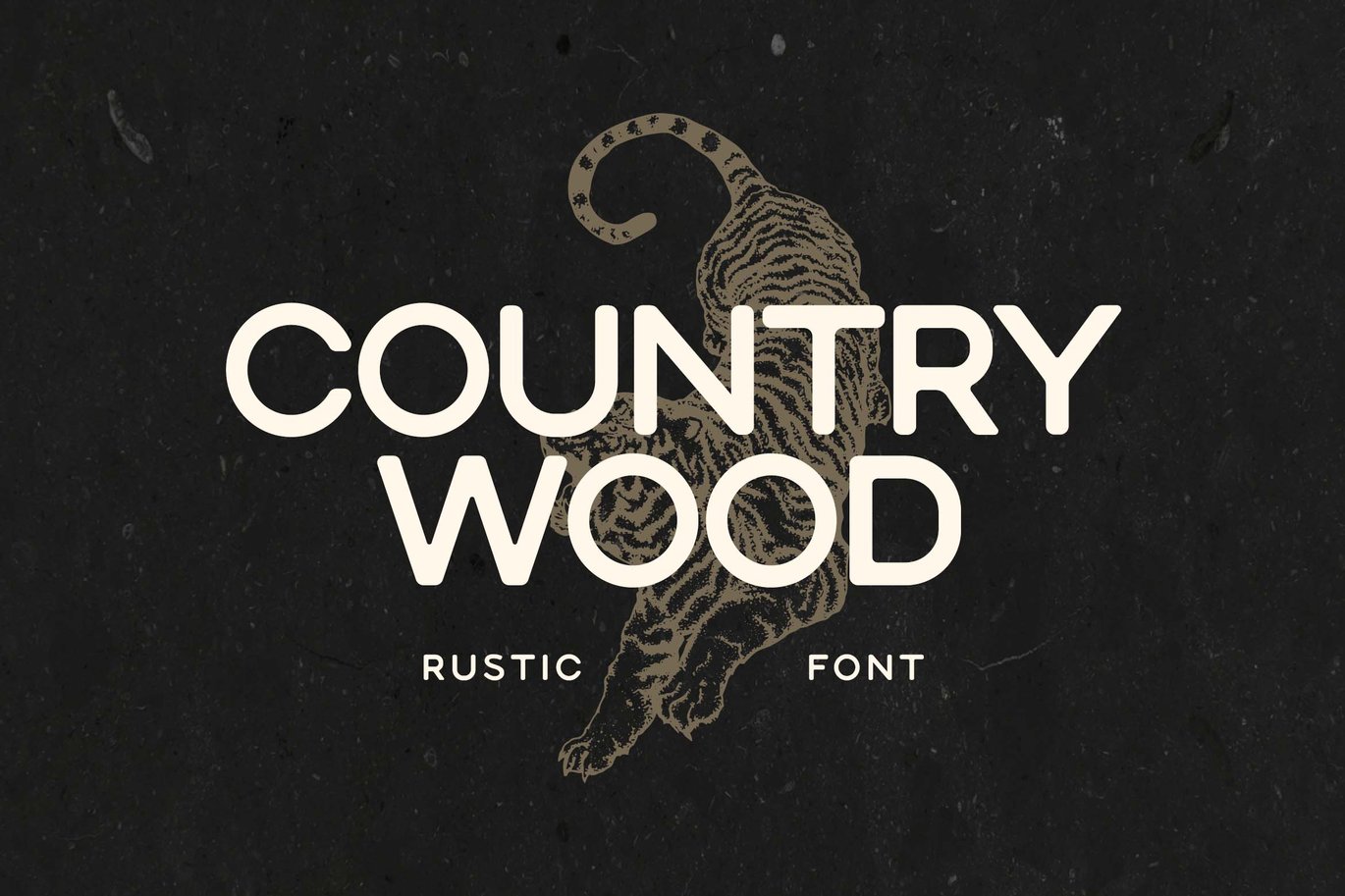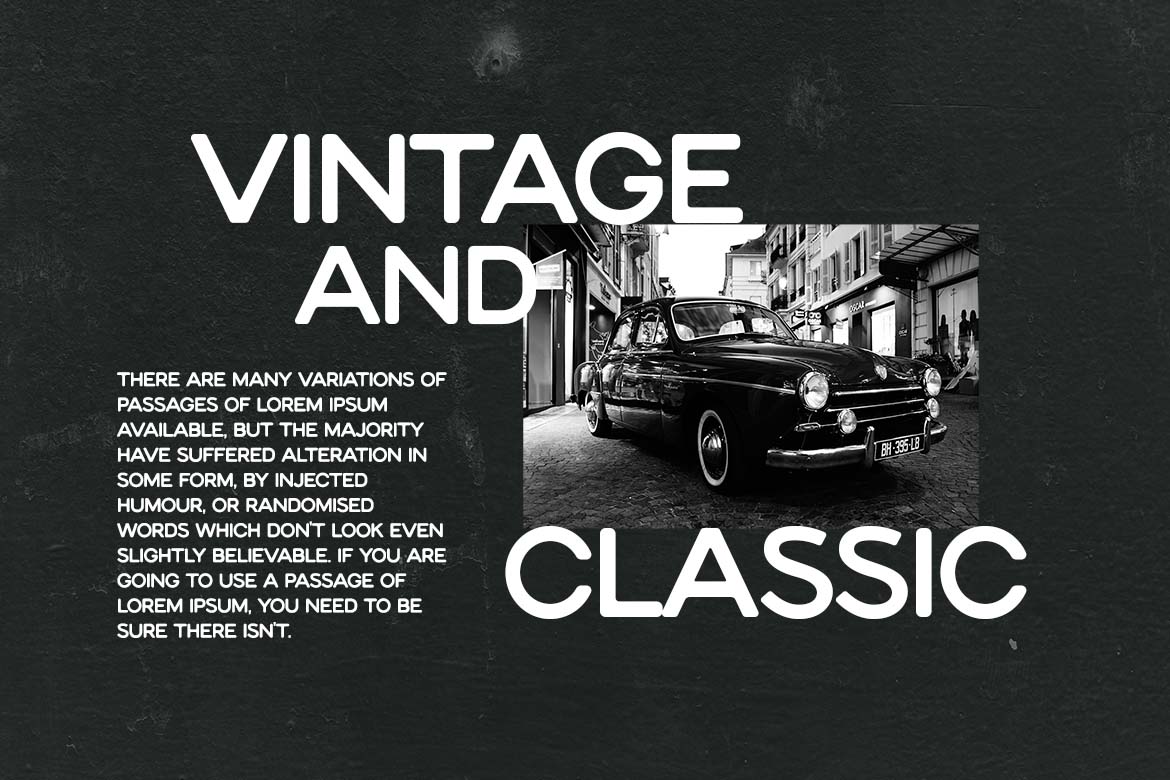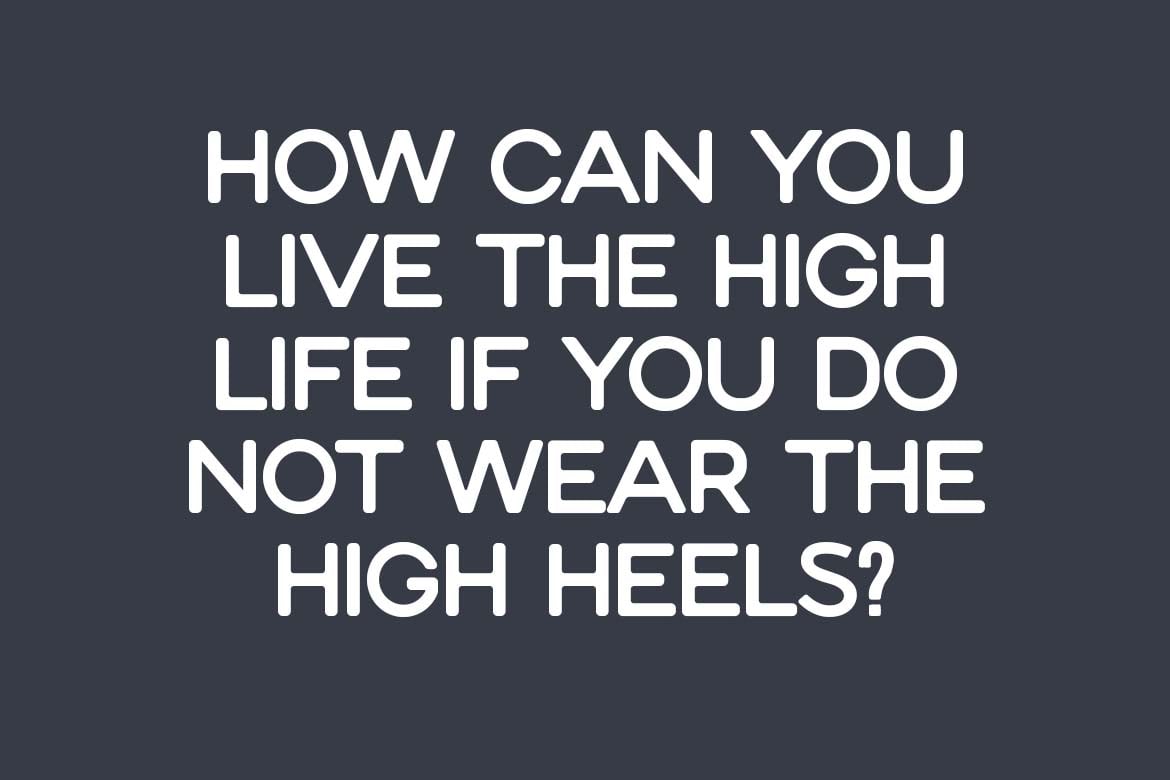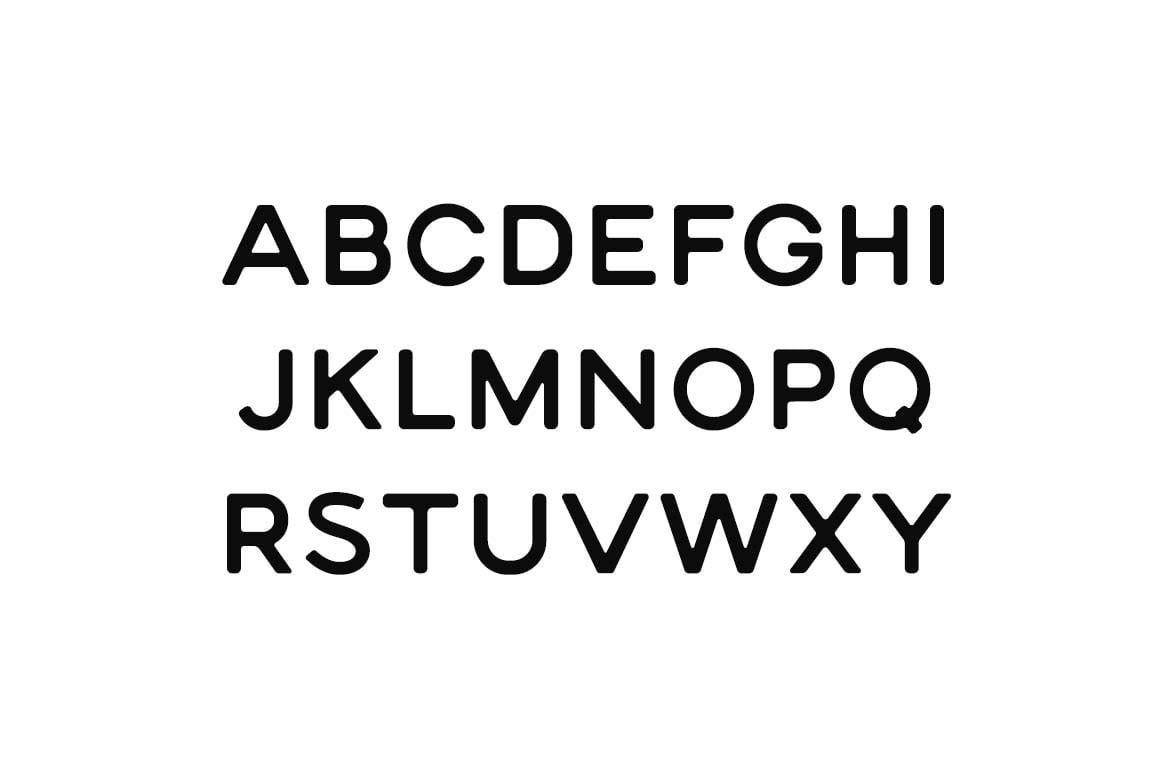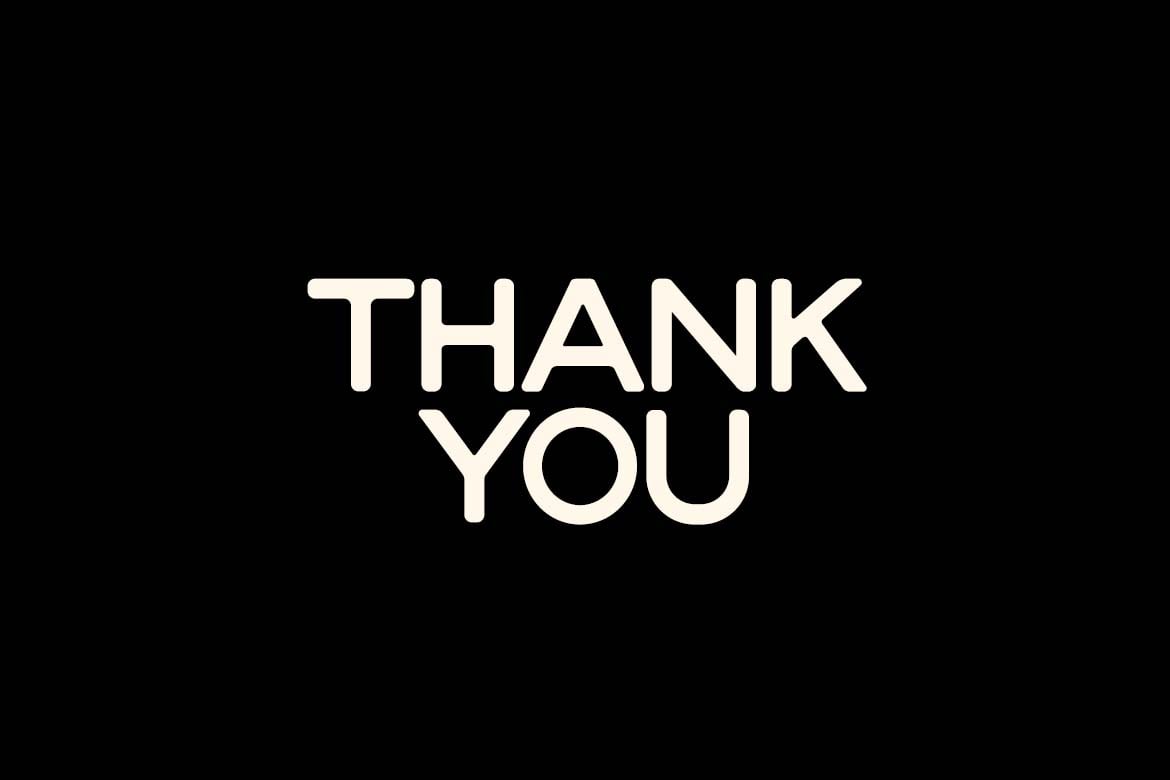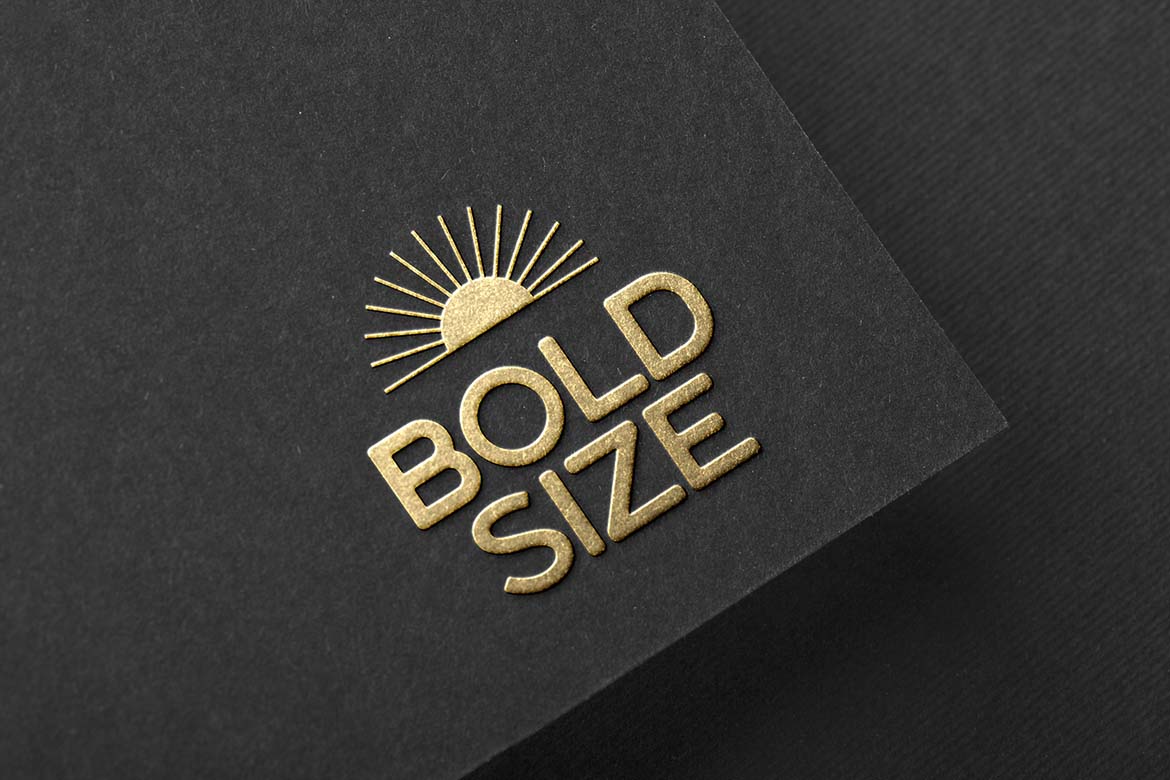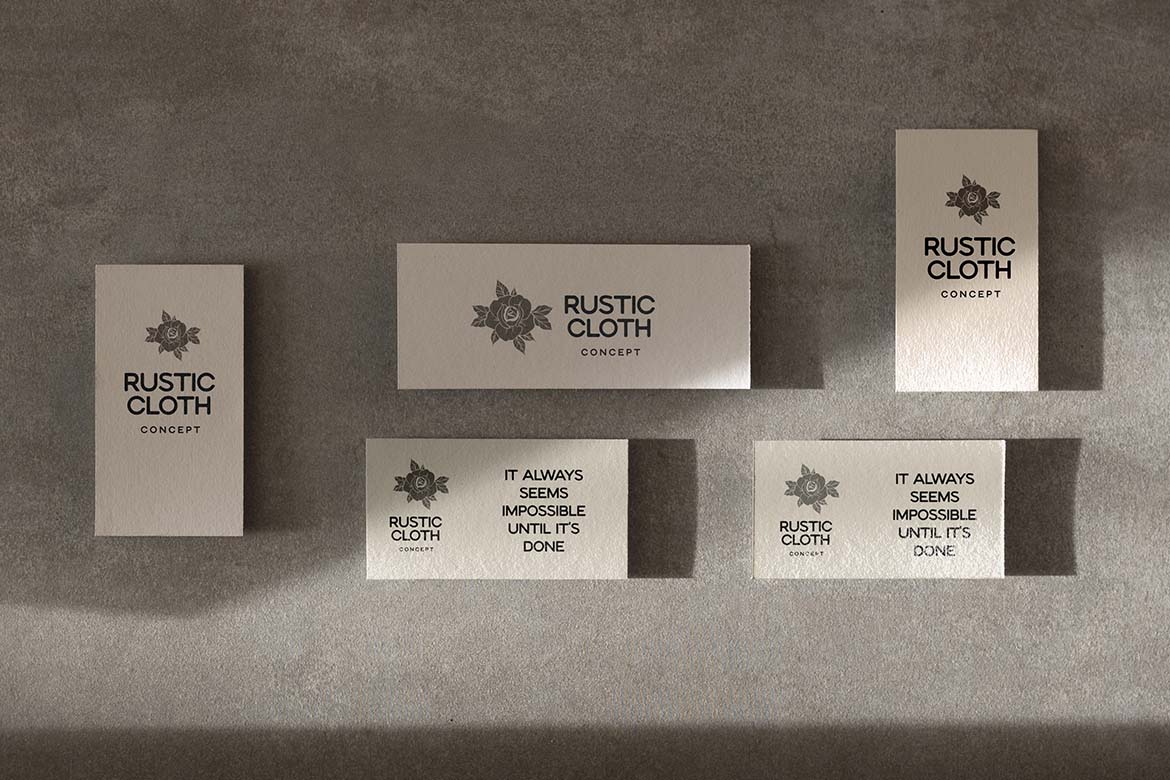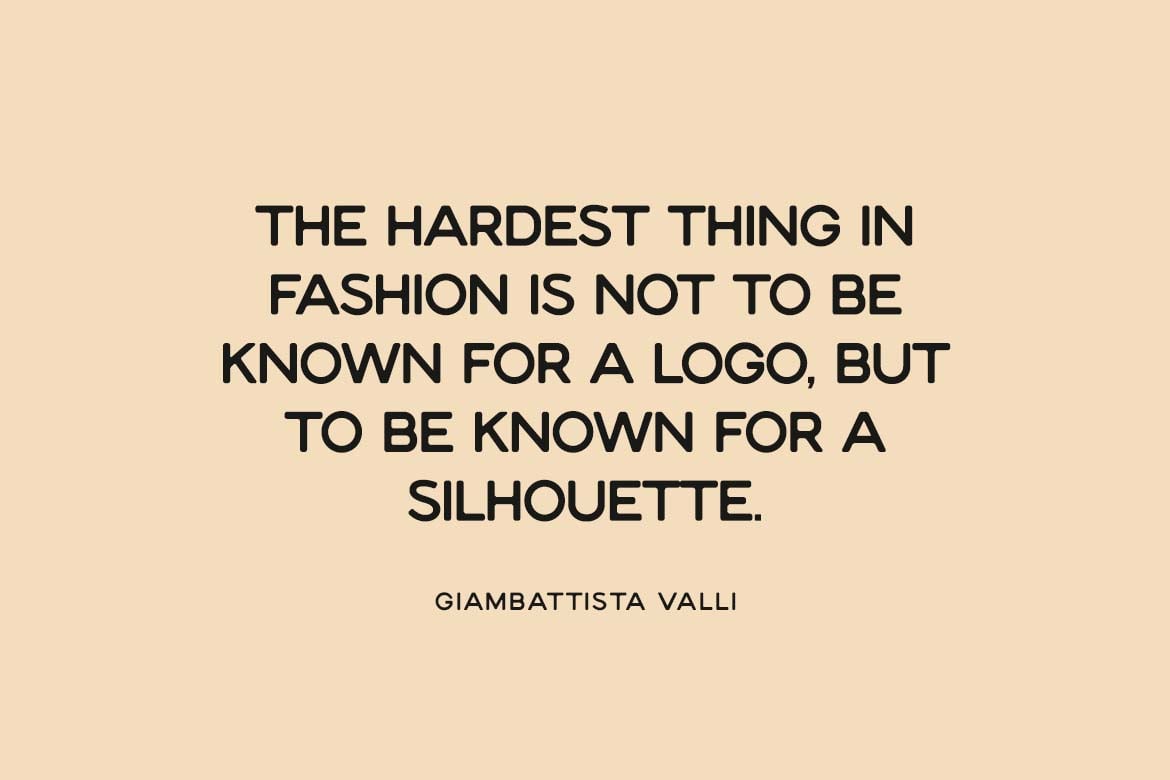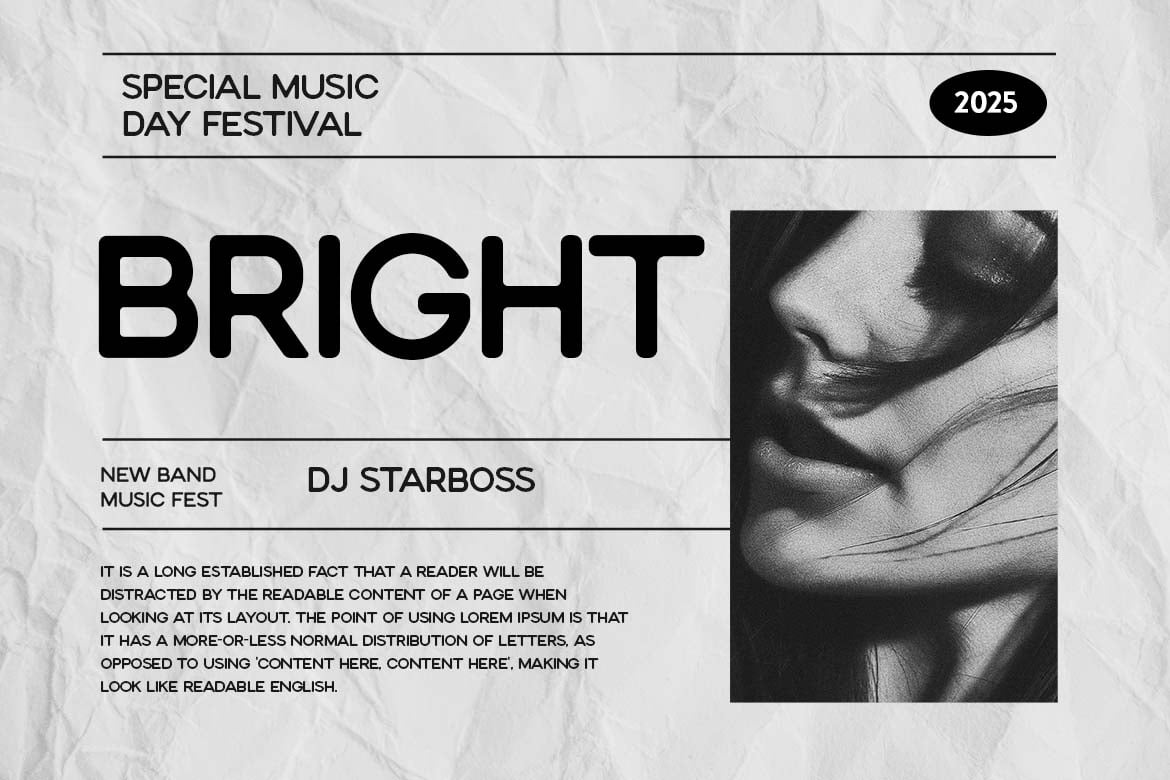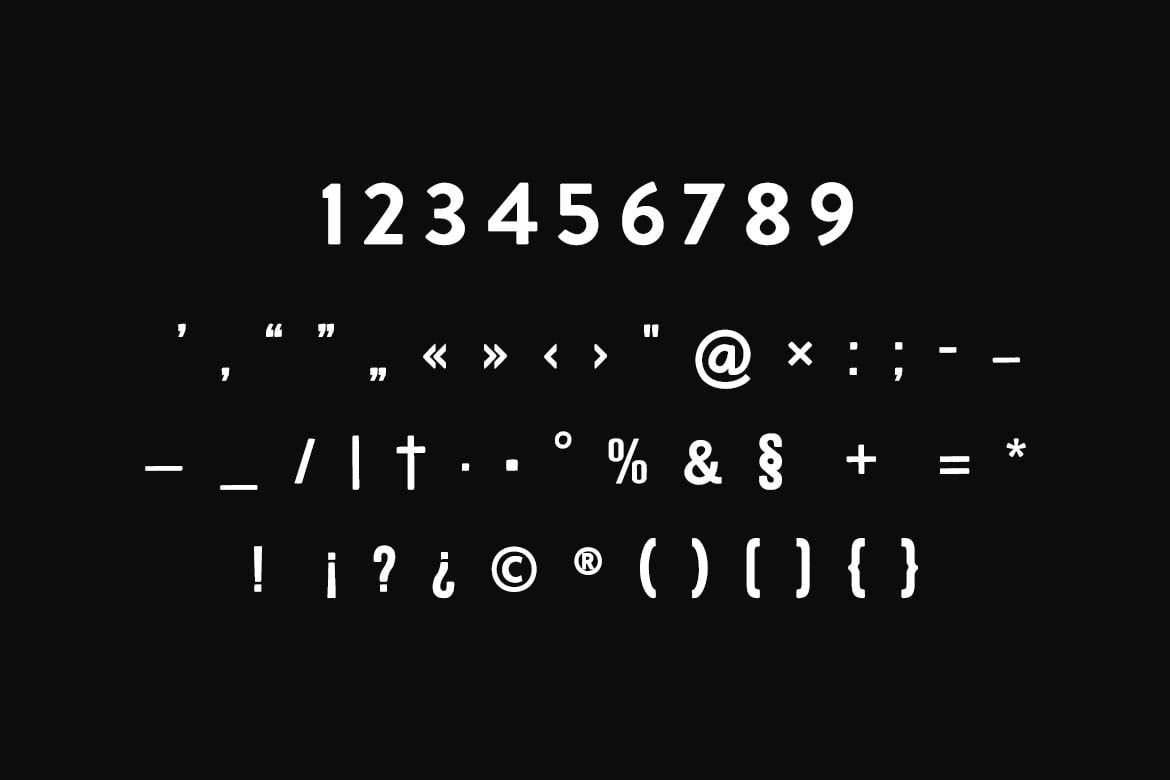
Country Wood Rustic Font
Introducing our new product the name is Country Wood Rustic Font. Country Wood Rustic Font that feels beautiful classy, elegant, and modern. This font is perfectly suited for a wide variety of projects, such as signature, stationery, logo, wedding, typography quotes, magazine or book covers, website headers, clothing, branding, packaging design, and more. Also, fashion-related branding or editorial design displays both masculine and feminine qualities.